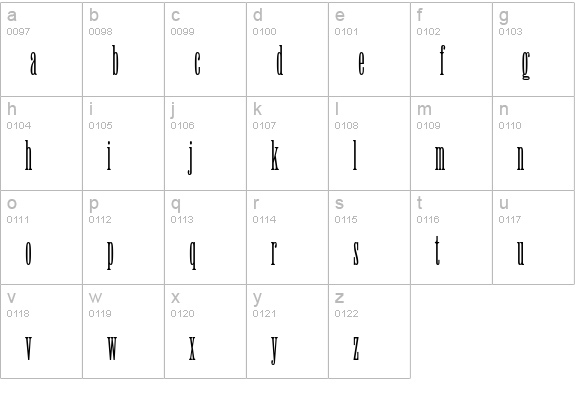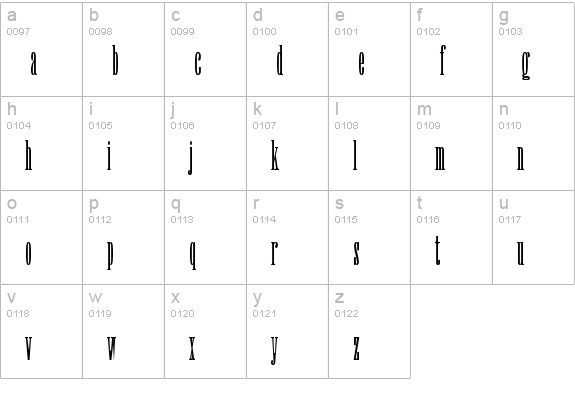
Willow Std Light Font Details
Willow Std Light is a refined, elegant variant in the Willow typeface family \xE2\x80\x94 well suited to elegant body text, refined sub-headings, and luxury branding.
Willow Std Light font is a beautifully crafted typeface that exudes elegance and sophistication. Its delicate letterforms and subtle curves make it perfect for projects that require a touch of refinement and grace. This font is the epitome of versatility, as it can be used for a wide range of design purposes, including invitations, branding, headlines, and more. Its clean and legible design ensures that your message will be easily read and understood by your audience. But the best part about Willow Std Light font is that it is available for free! You can download this stunning typeface at FontsMarket.com, where you'll find an extensive collection of high-quality fonts for all your design needs. Whether you're a professional designer or a hobbyist, this font is sure to enhance your projects and make them stand out. So why wait? Add a touch of elegance to your designs with Willow Std Light font, and enjoy the freedom of creating beautiful typography without any cost. Download it today at FontsMarket.com and elevate your designs to new heights.